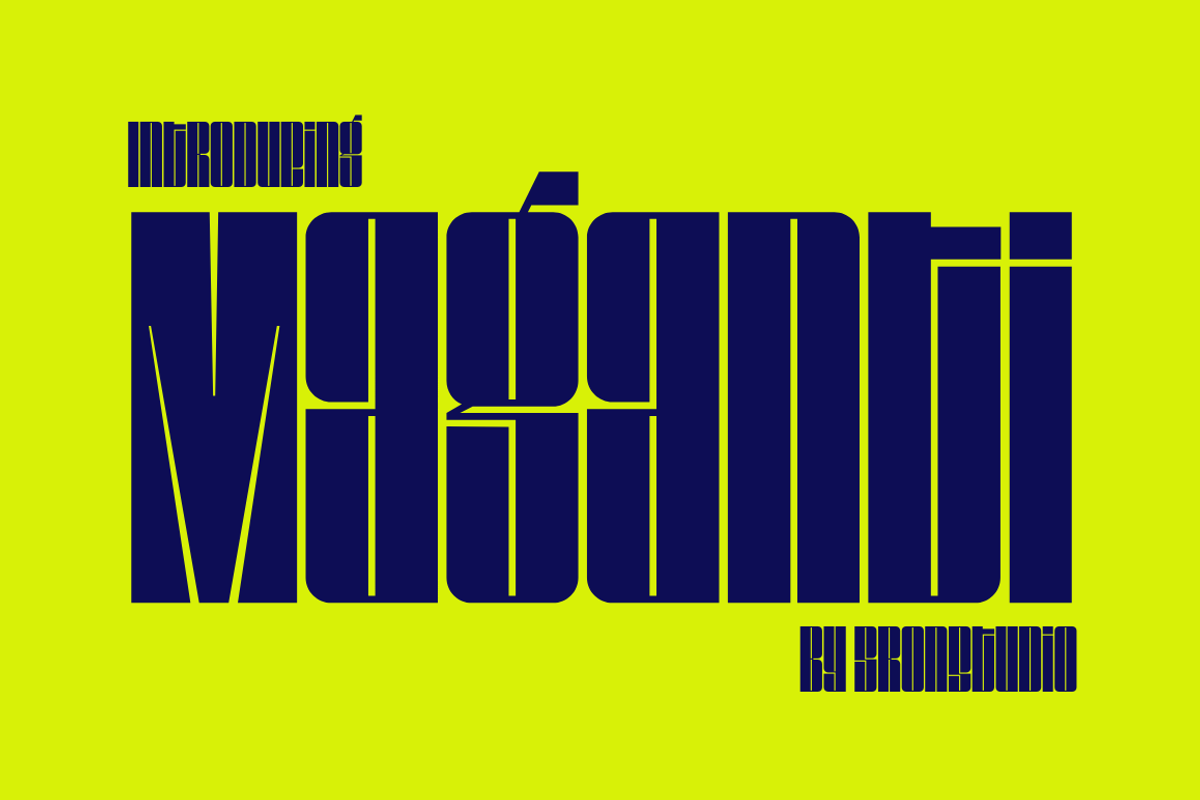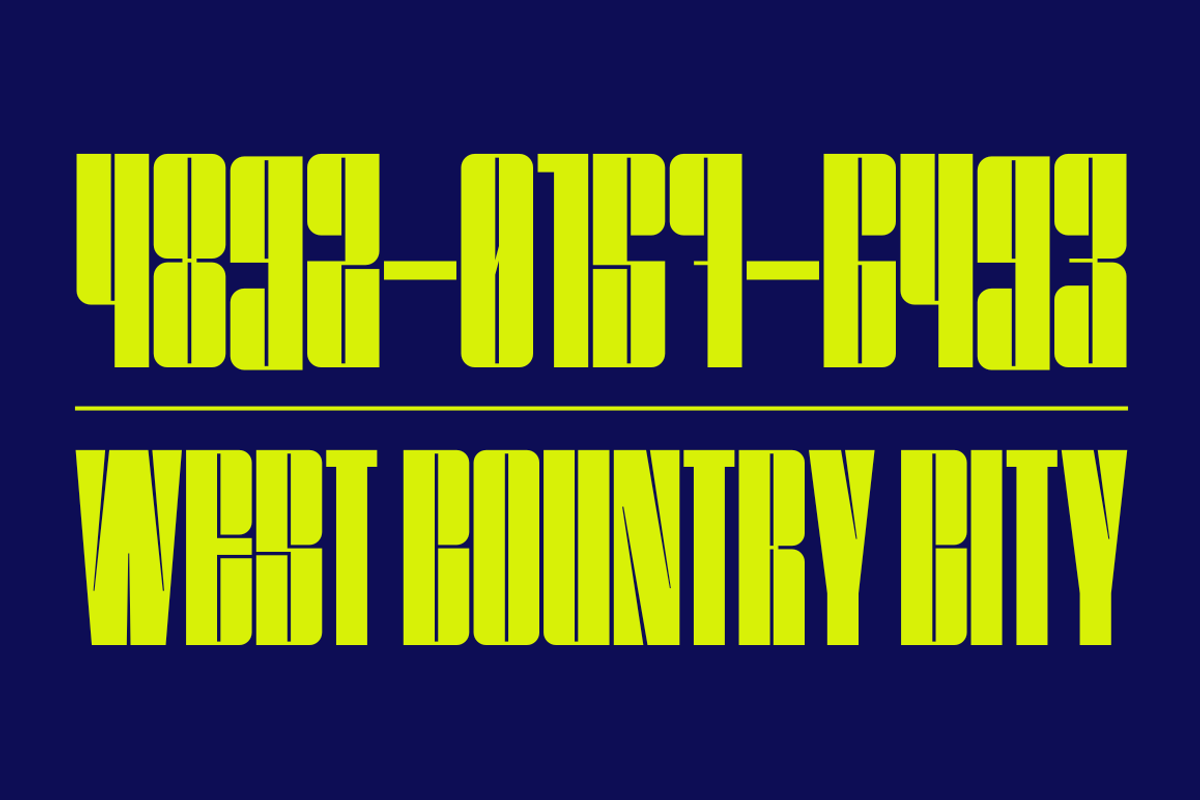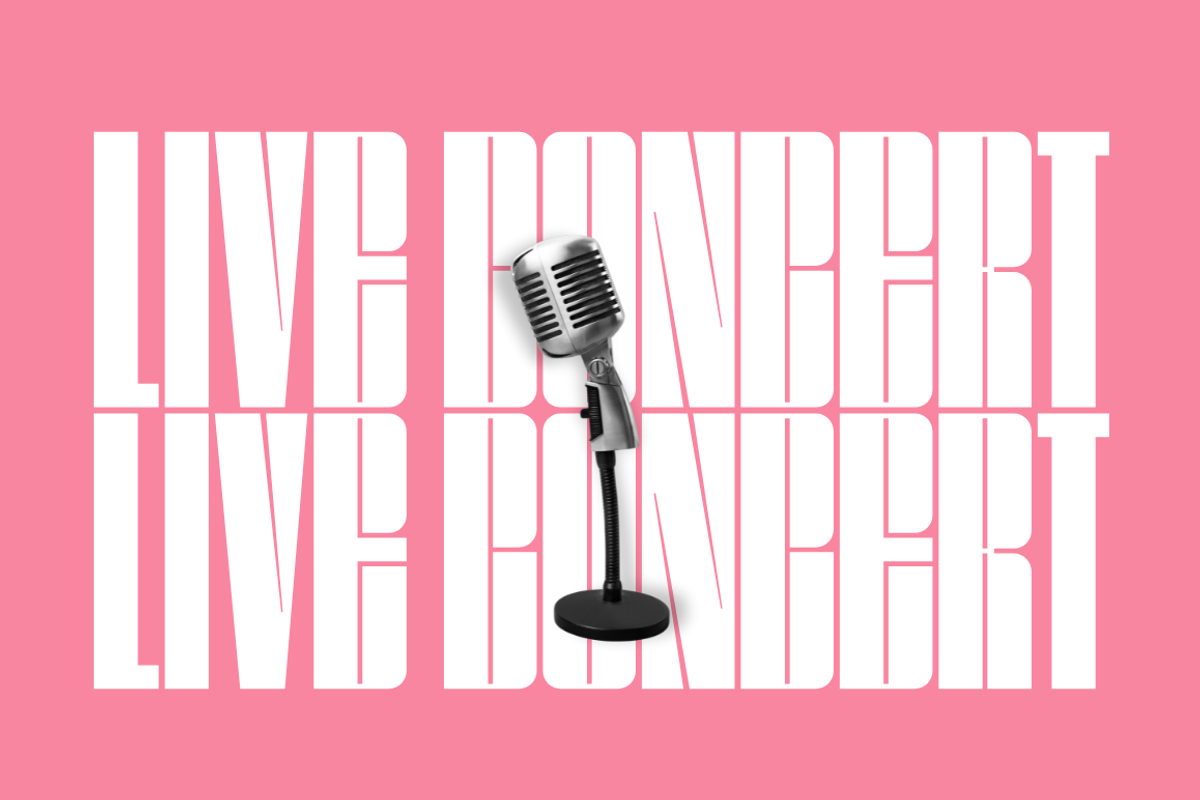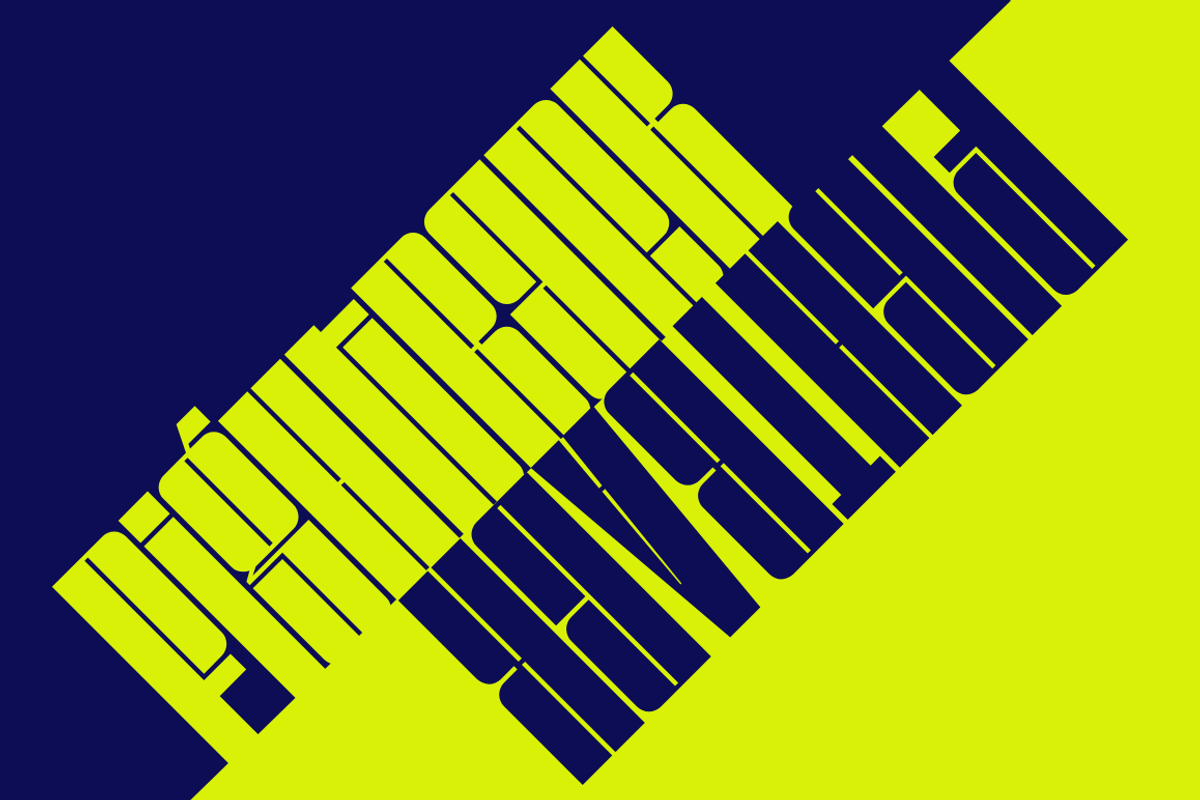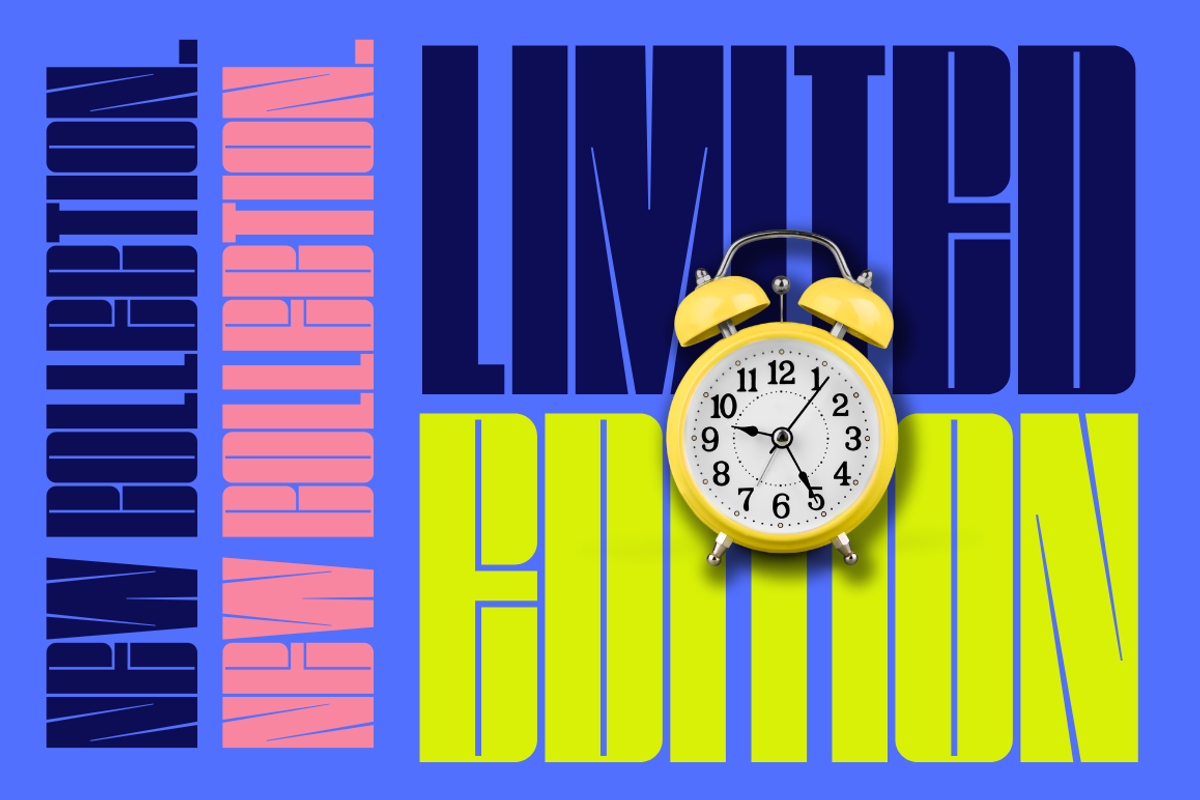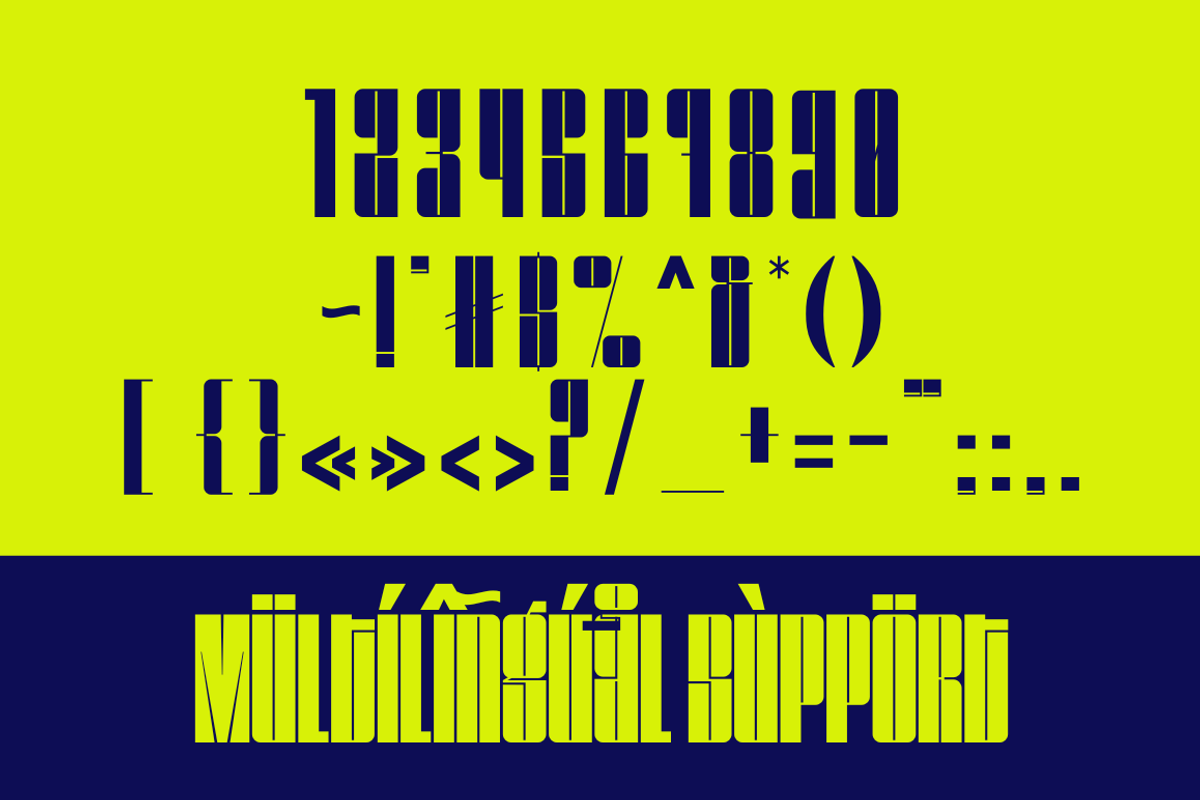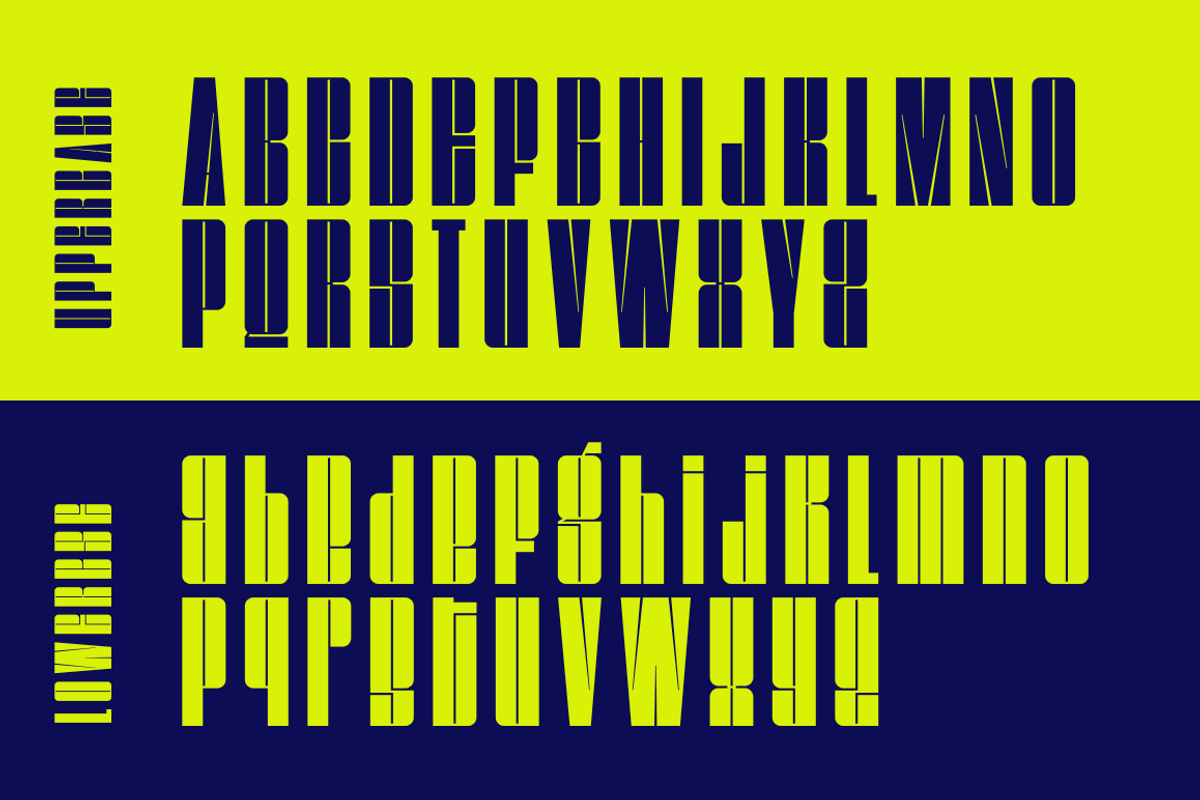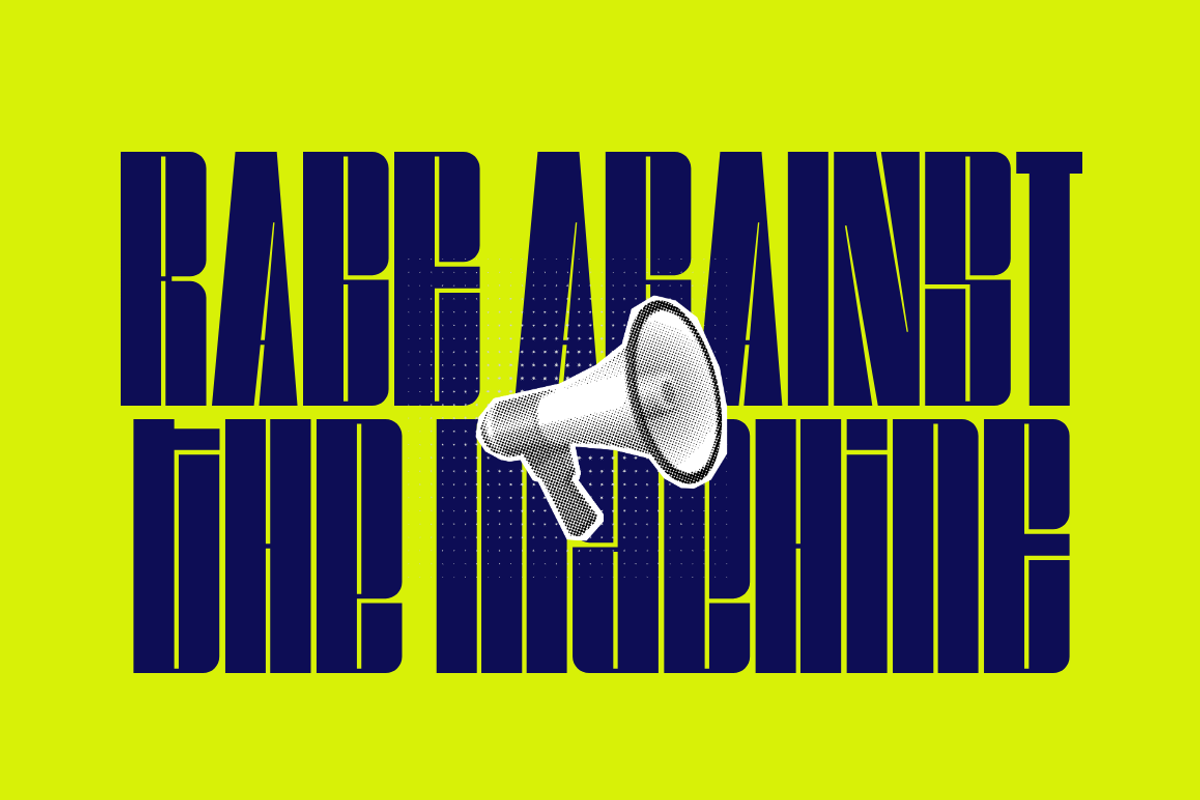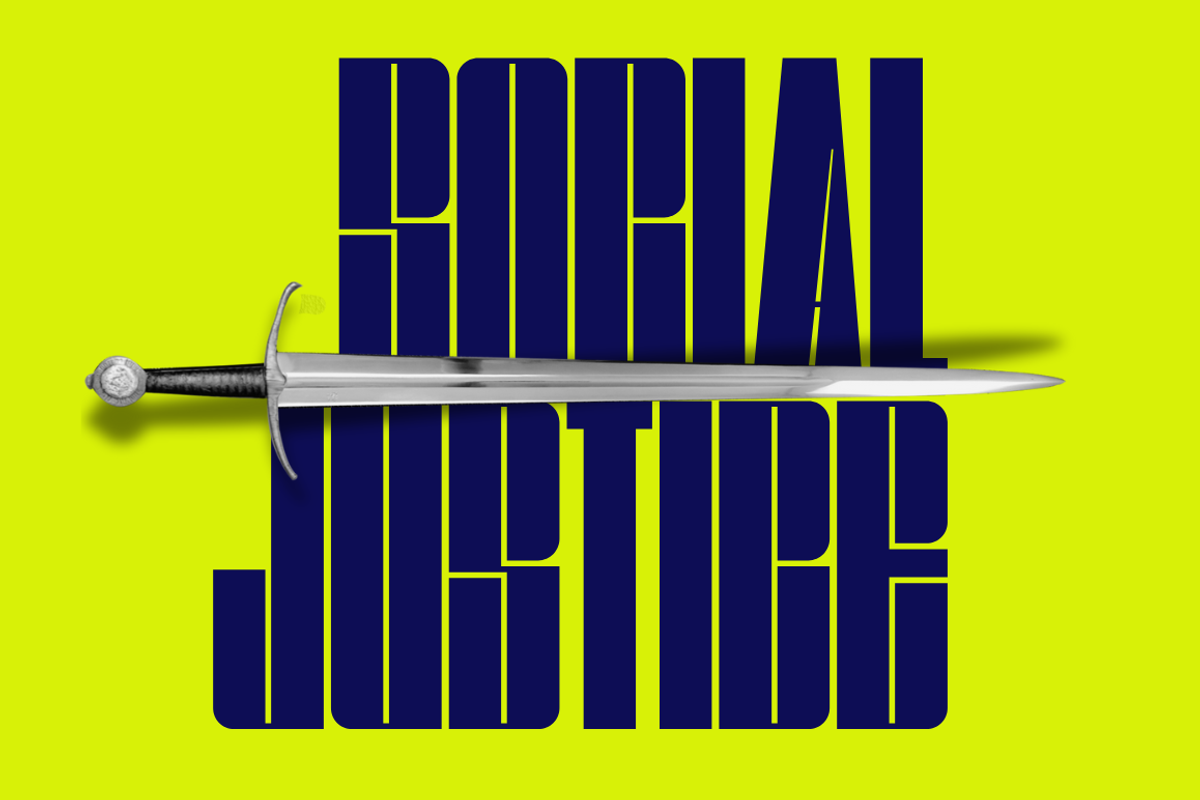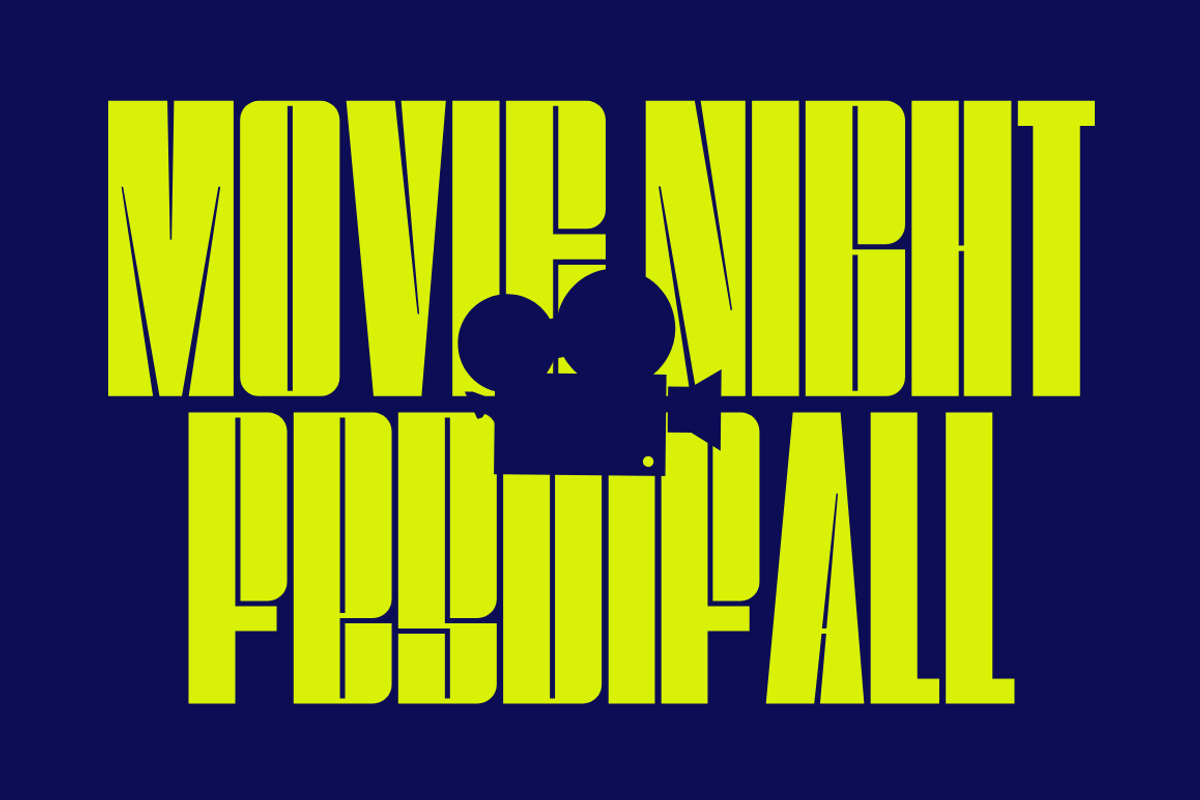
Maganti – Condensed Display Font
Introducing “Maganti,” a condensed square display font that commands attention with its bold and geometric design. With its clean lines and compact form, this font exudes modernity and efficiency. Perfect for projects that require a sleek and impactful typographic presence, such as posters, headlines, or branding materials. “Maganti” adds a touch of sophistication and versatility to your designs, ensuring they stand out with a bold and contemporary aesthetic.